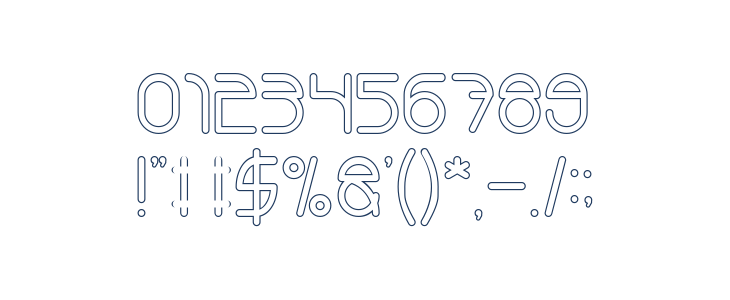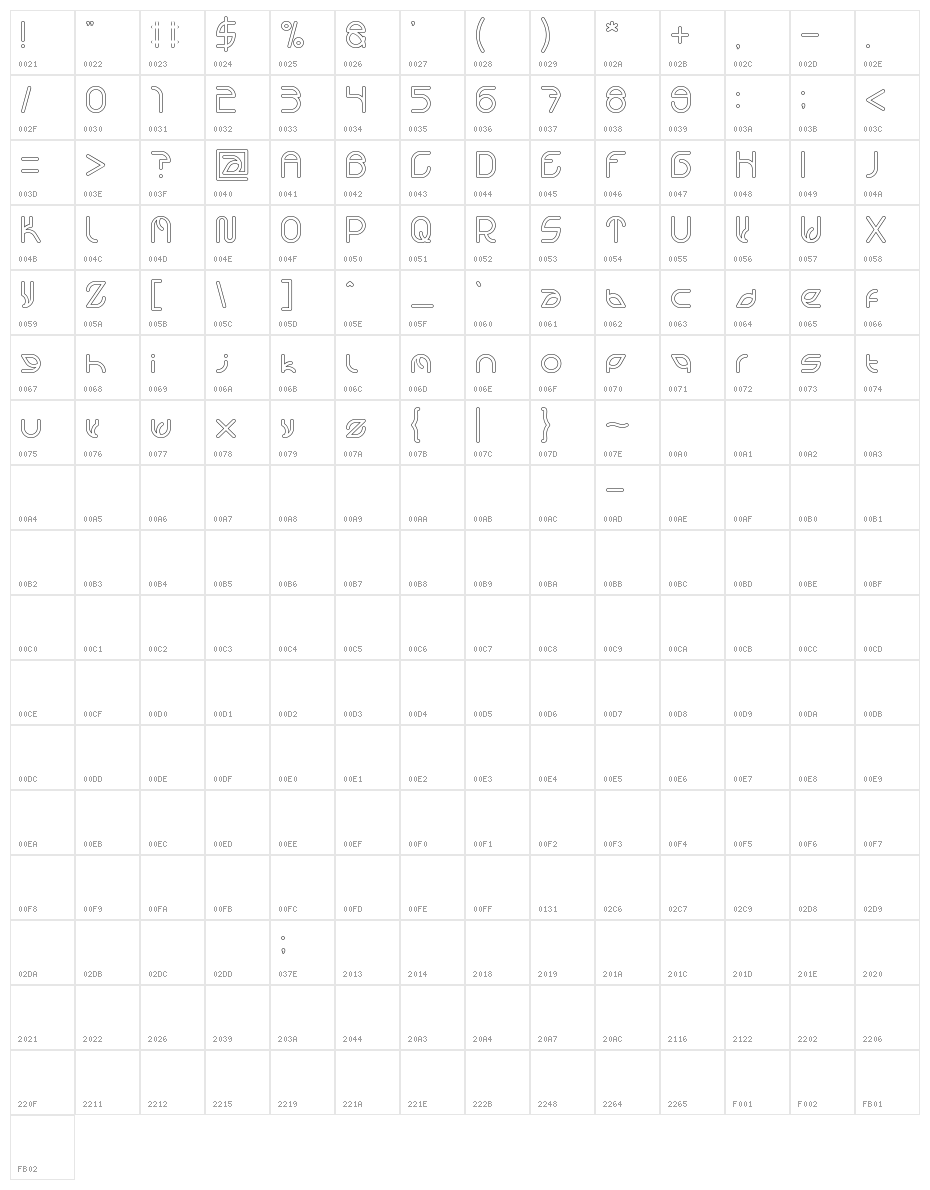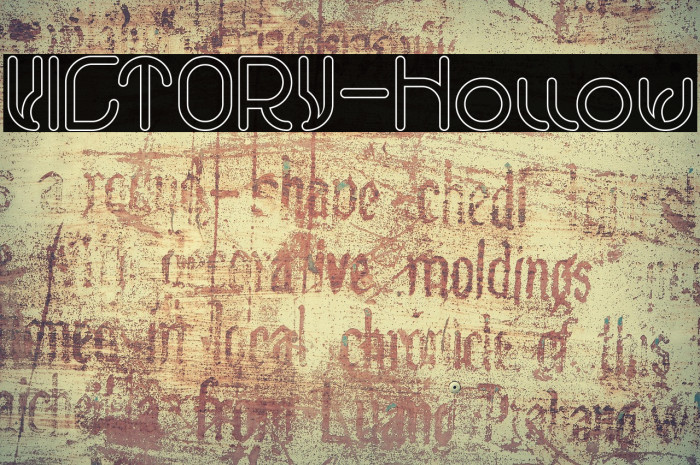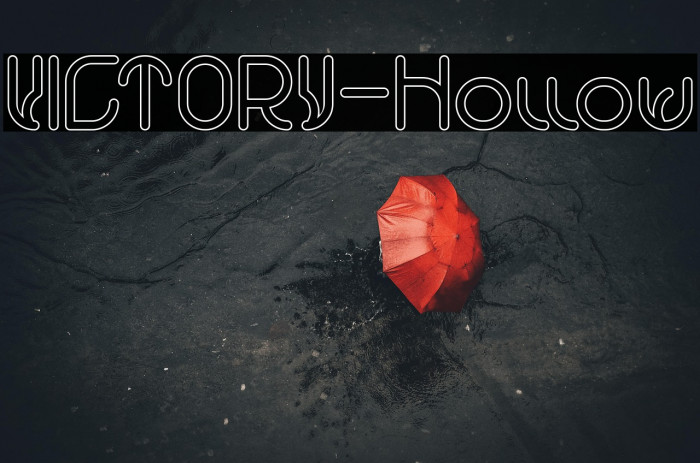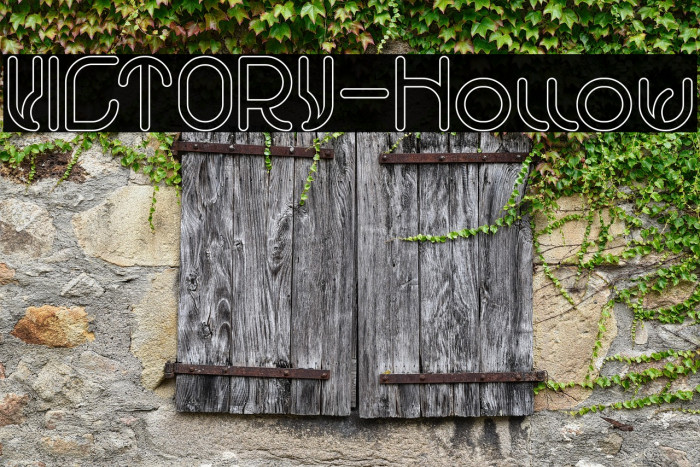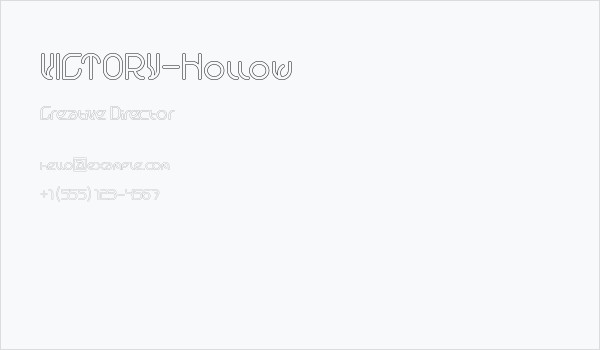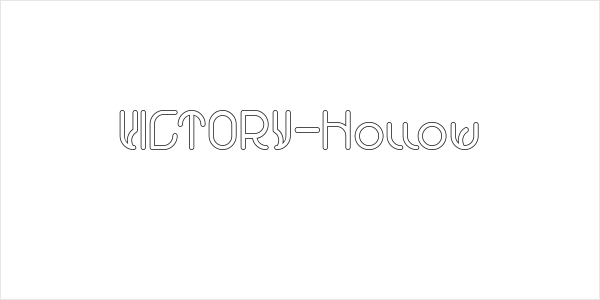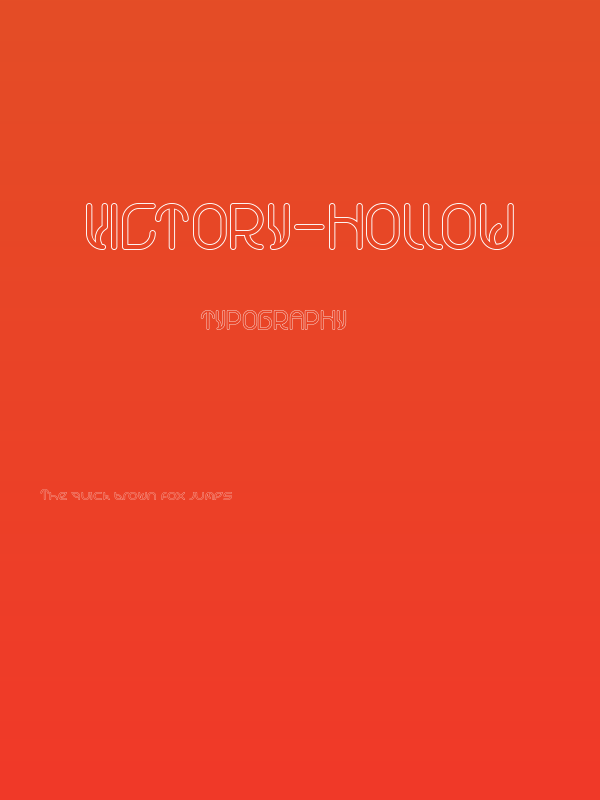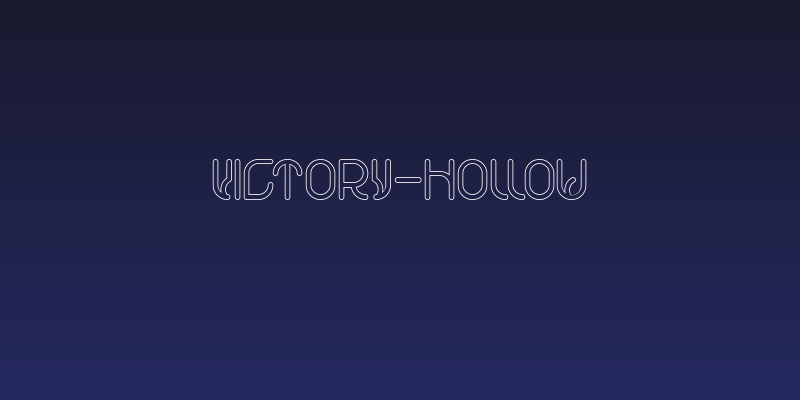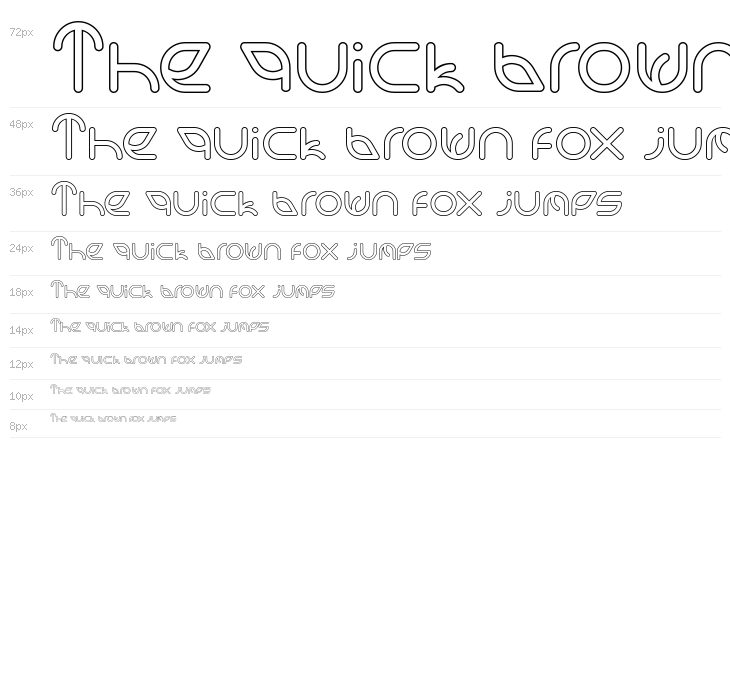
VICTORY-Hollow Font
VICTORY-Hollow Description
This font features a unique hollow design with a futuristic and geometric aesthetic. The characters are outlined, creating a sense of openness and lightness. Each letter is constructed with clean, rounded edges and consistent line thickness, giving it a modern and sleek appearance. The uppercase and lowercase letters maintain a uniform style, while the numerals and special characters complement the overall design. This font's distinct style makes it stand out, ideal for creative and bold applications.